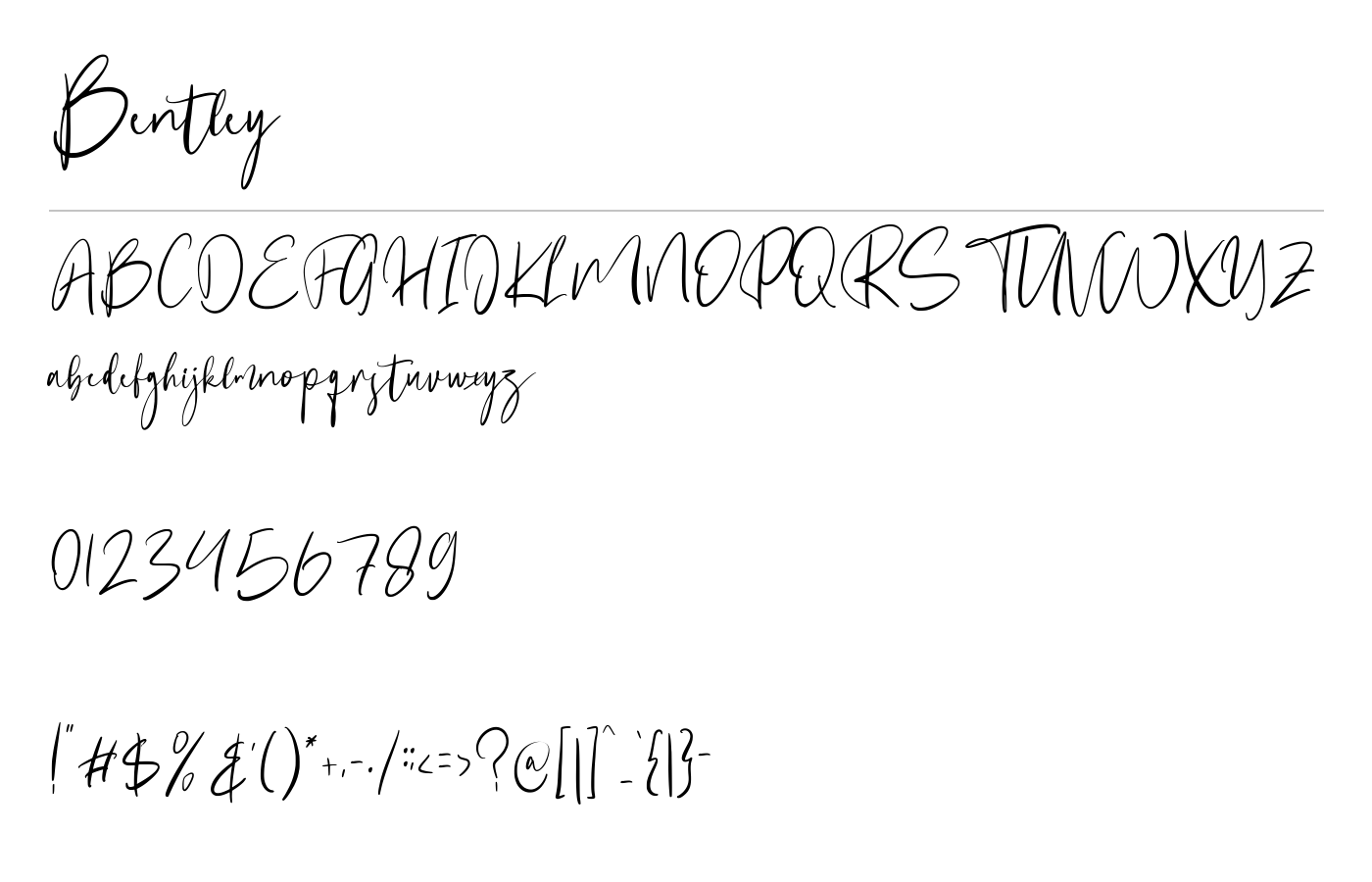
Bentley is a delicate, handwritten script font featuring slender, flowing strokes and a casual, elegant feel. Its tall, narrow letterforms and smooth, connected lines make it perfect for adding a personal, sophisticated touch to invitations, branding, and creative projects where a stylish yet approachable look is desired.
Bentley Font
About Bentley Font